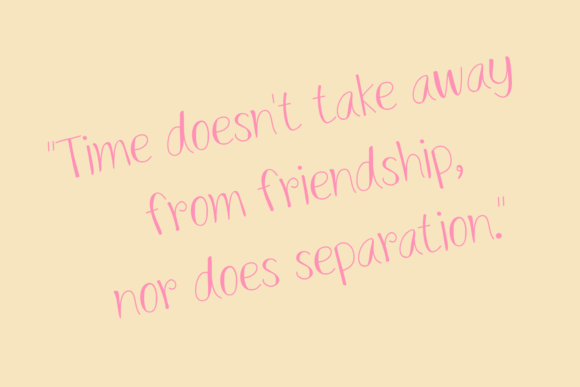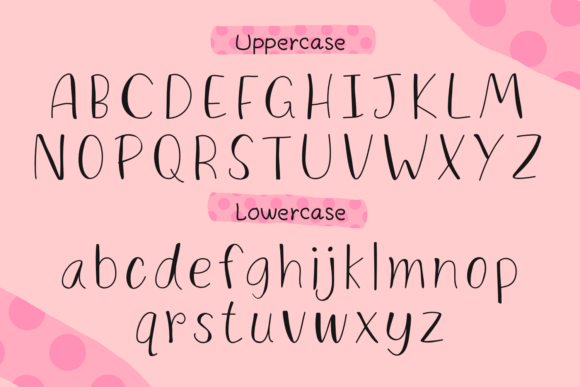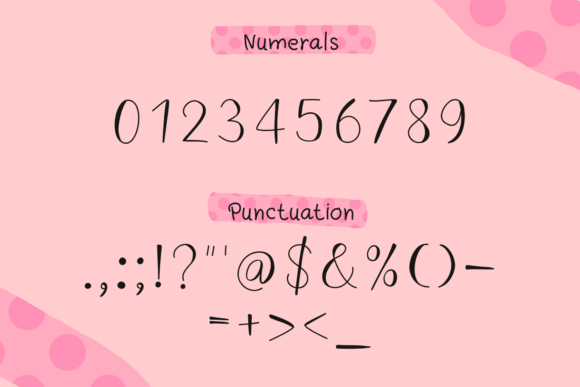
Introduction to Friend Font Font Font
Fonts play a crucial role in design, and the Friend Font Font font is a typeface that brings both character and versatility to any project. Whether you’re working on a branding project, a website, or a print design, the Friend Font Font font offers a unique style that can elevate your work.
Friends is a fun and quirky handwritten font.
It adds a joyful and modern touch to each of your designs Add it confidently to your projects, and you wonβt be disappointed.
Key Features of Friend Font Font Font
Why Choose Friend Font Font Font?
The Friend Font Font font is more than just a typeface β it’s a design tool that helps you communicate your message with style and clarity. Its unique character set and versatile design make it suitable for a wide range of applications, from elegant invitations to bold headlines.
With its carefully crafted letterforms and balanced proportions, the Friend Font Font font ensures readability and visual appeal across all mediums.
What makes Friend Font Font font special?
The Friend Font Font font stands out with its unique design, exceptional readability, and versatility across various design applications.